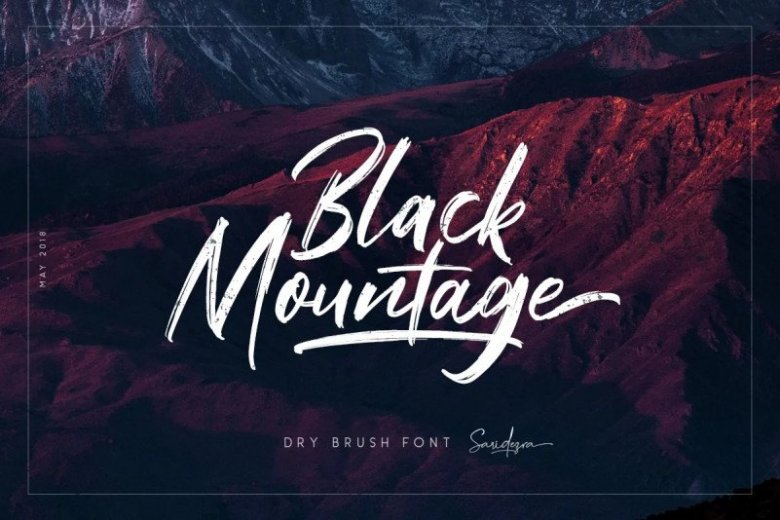
Black Mountage Font
Black Mountage Brush Font, designed by saridezra is a signature brush font modern casual and smooth brush stroke font includes opentype features Ligatures. This font is support multi language. This font is suitable for logo design, Movie Titles , Books Titles and any awesome project you create. Make stunning work with Black Mountage font.